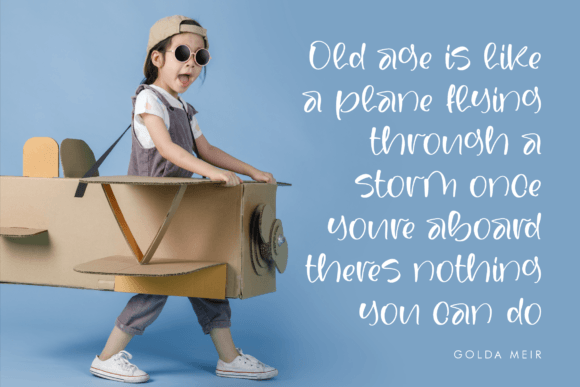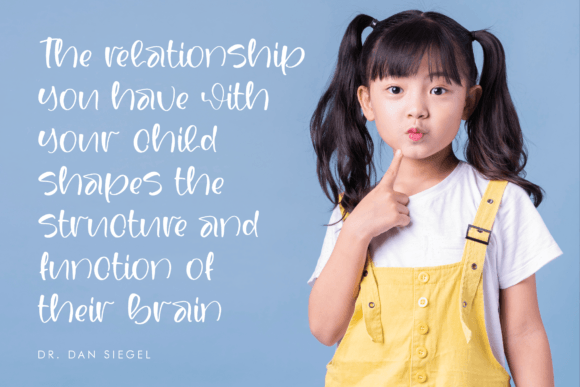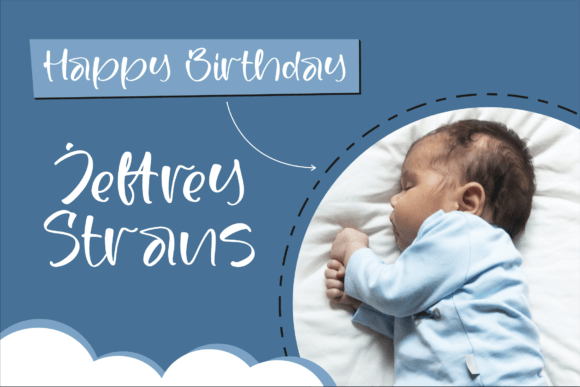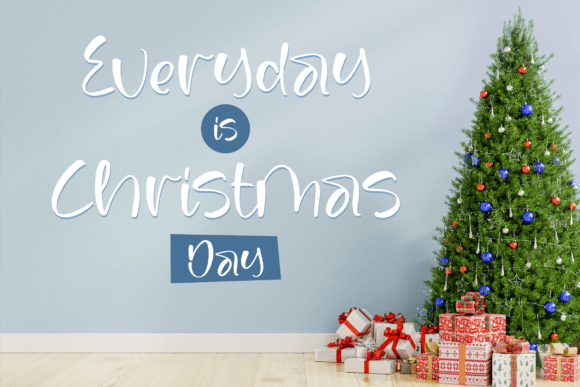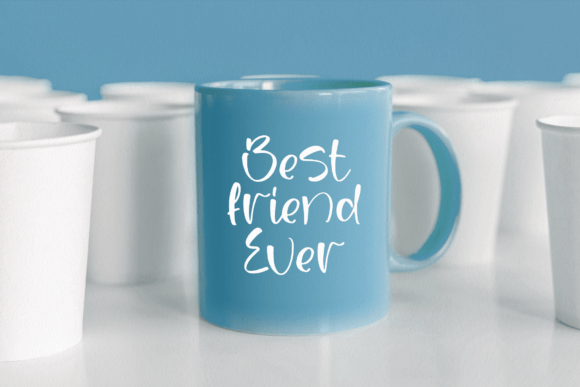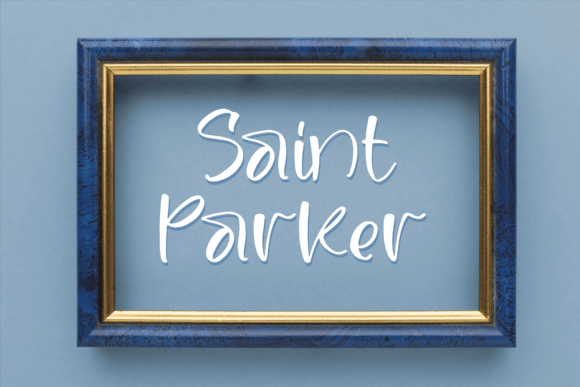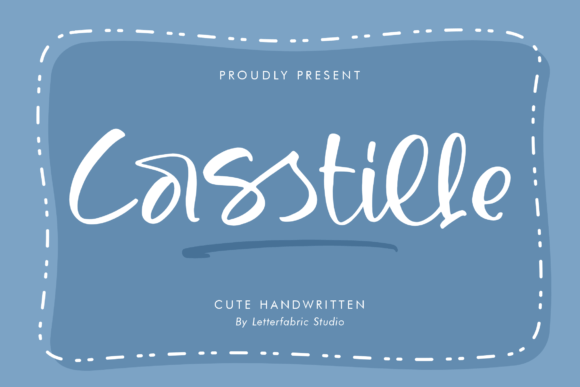
Casstille Font: The Ultimate Handwritten Font for Creative Designs
Are you a designer, crafty person, or DIY enthusiast looking for a font that can add a touch of playfulness and charm to your creative projects? Look no further than Casstille Font! This adorable handwritten font is perfect for making stunning graphic designs, from logos and branding to product packaging, mugs, quotes, posters, shopping bags, t-shirts, book covers, name cards, and more.
What Makes Casstille Font So Special?
Casstille Font is a unique and eye-catching handwritten font that is sure to capture the attention of your audience. Its cute and playful style makes it perfect for designs that require a personal touch, such as:
- Logos and branding: Create a memorable and recognizable brand identity with Casstille Font.
- Product packaging: Add a touch of whimsy and charm to your product packaging and make it stand out on store shelves.
- Mugs and ceramics: Create personalized and adorable mugs, plates, and other ceramic products.
- Quotes and posters: Make inspiring and motivational quotes that will brighten up any room.
- Shopping bags and t-shirts: Design eco-friendly shopping bags and trendy t-shirts that will make a statement.
- Book covers and name cards: Create eye-catching book covers and elegant name cards that will make a lasting impression.
Key Features of Casstille Font
Casstille Font comes with a range of features that make it a versatile and practical choice for designers and crafters:
- Handwritten style: Casstille Font has a unique, handwritten style that adds a personal touch to any design.
- Playful and cute: The font’s playful and cute style makes it perfect for designs that require a touch of whimsy and charm.
- Easy to read: Despite its playful style, Casstille Font is easy to read and understand, making it perfect for body text and headlines.
- Multilingual support: Casstille Font supports multiple languages, making it a great choice for designers who work with international clients.
Why Designers and Crafters Love Casstille Font
Casstille Font has become a favorite among designers and crafters, and for good reason:
- Unique style: Casstille Font has a unique and eye-catching style that sets it apart from other fonts.
- Versatile: Casstille Font can be used in a range of designs, from logos and branding to product packaging and more.